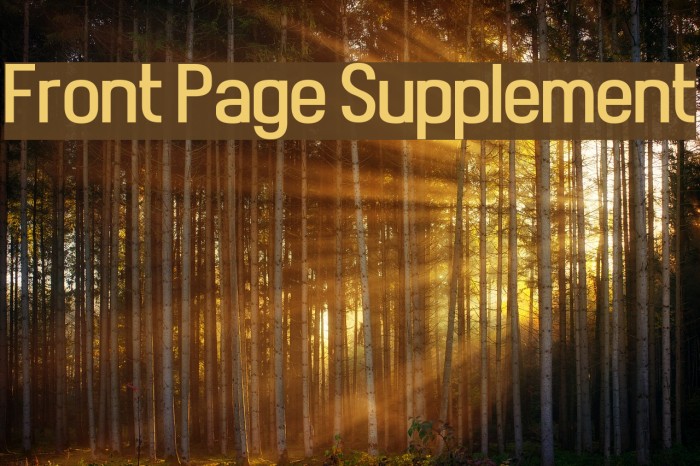
Front Page Supplement Font
This font features a bold and modern sans-serif style with clean lines and a uniform stroke width. The characters are well-proportioned, offering a strong and impactful presence. The uppercase letters are tall and commanding, while the lowercase letters maintain a consistent height, providing a harmonious balance. The numerals are clear and legible, making them suitable for various applications. Special characters are distinct and well-integrated, enhancing the font's versatility. The overall design is sleek and contemporary, making it ideal for projects that require a modern and professional look.
A bold, modern sans-serif font with clean lines and uniform stroke width.
- Proposed Projects: Ideal for branding, advertising, headlines, and digital media where a strong, modern impression is needed.
- Use Case: Headlines, Logos, Branding